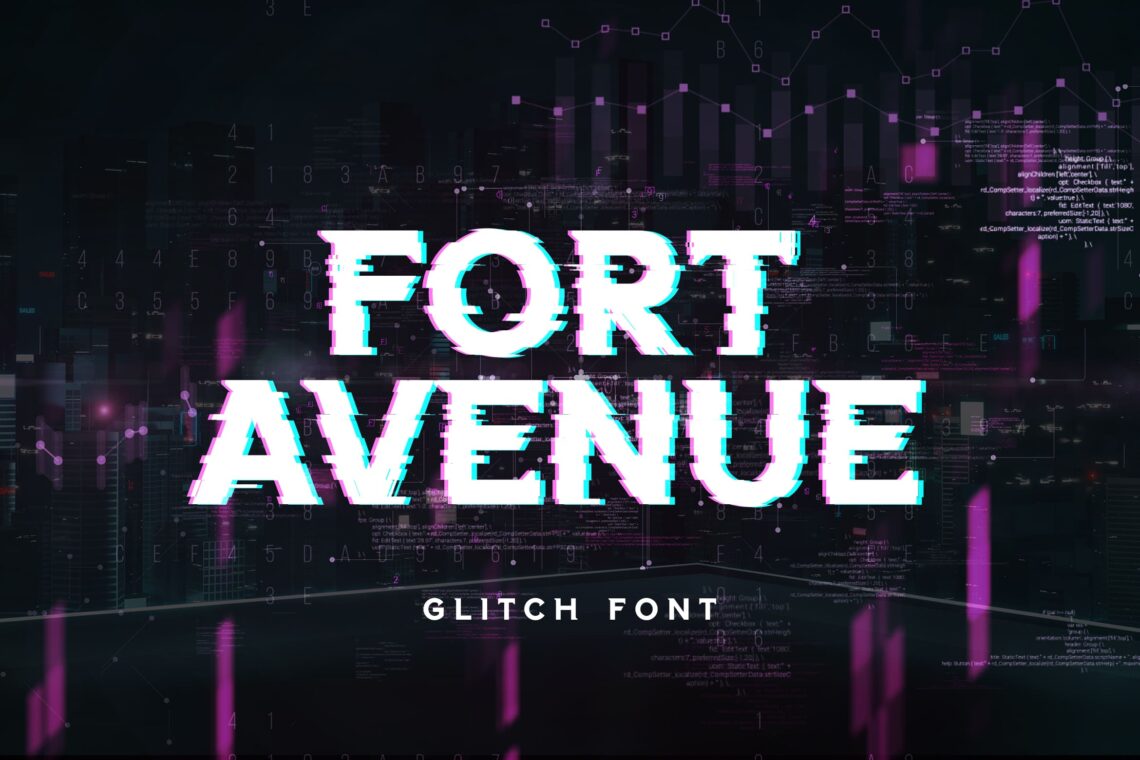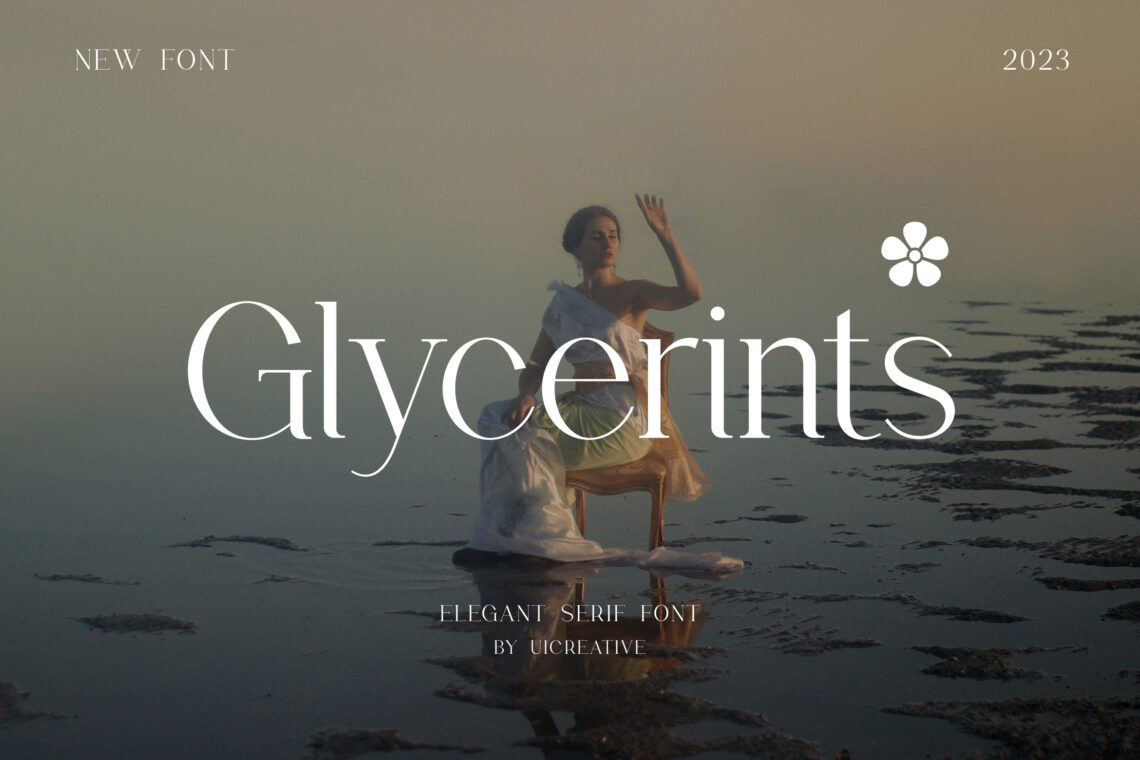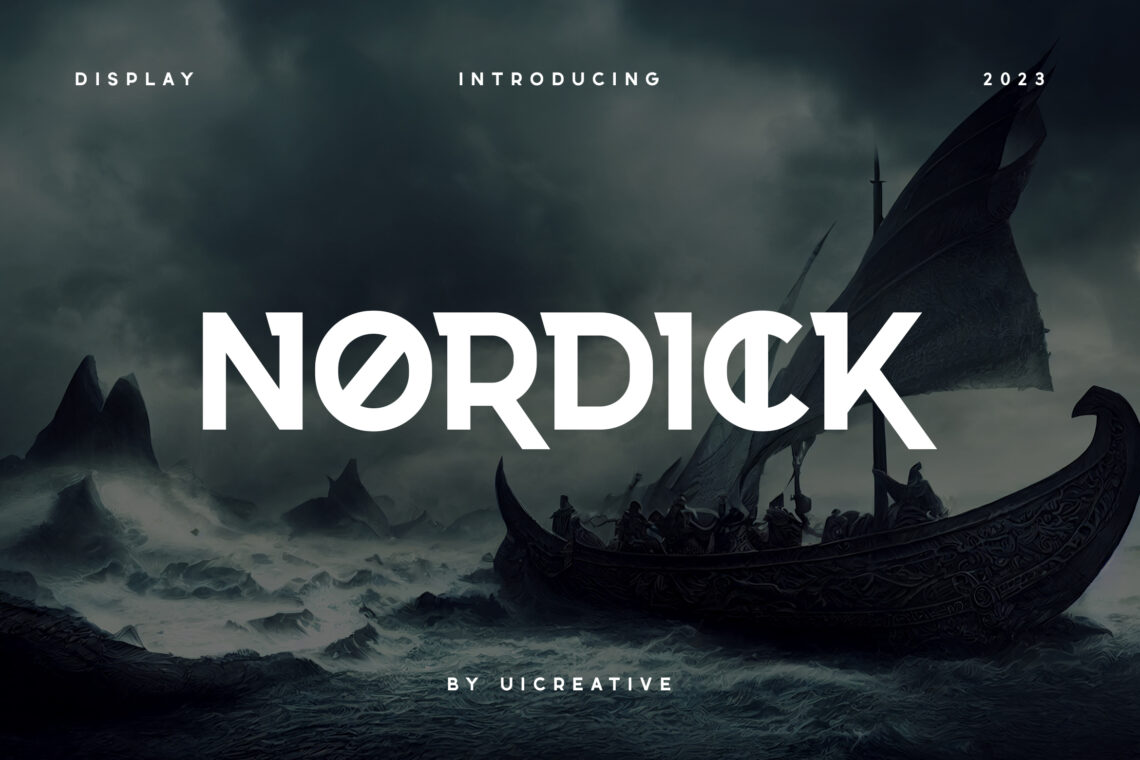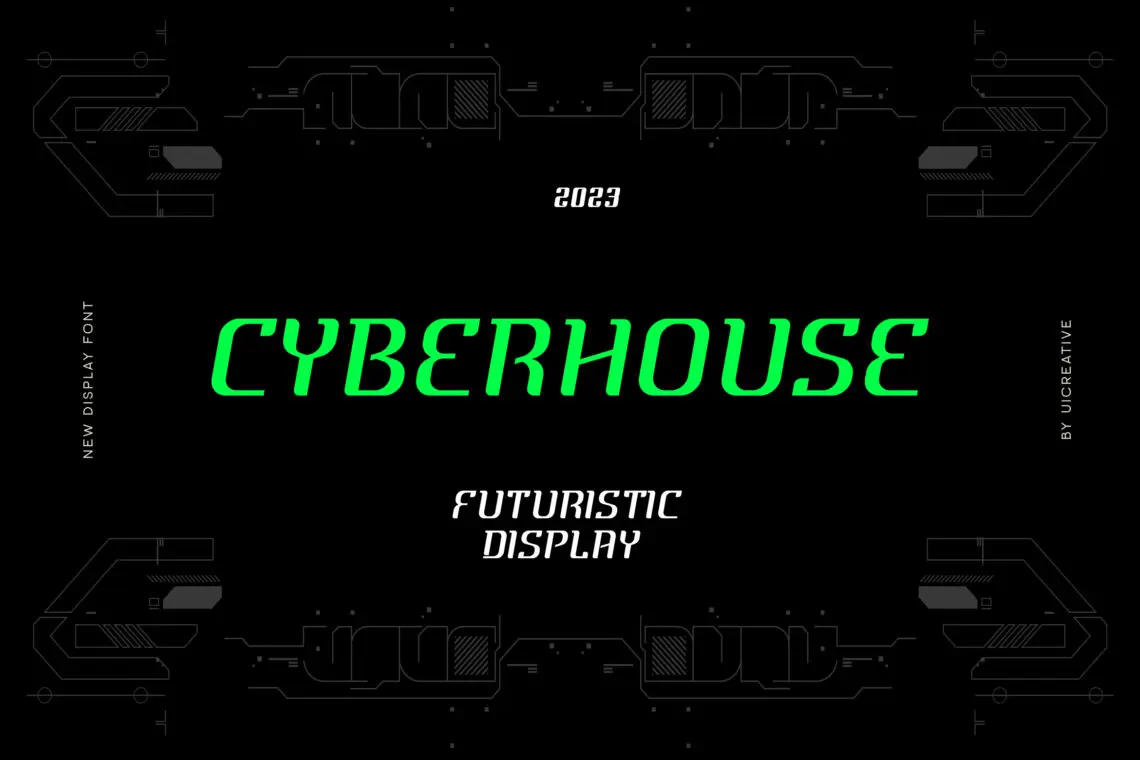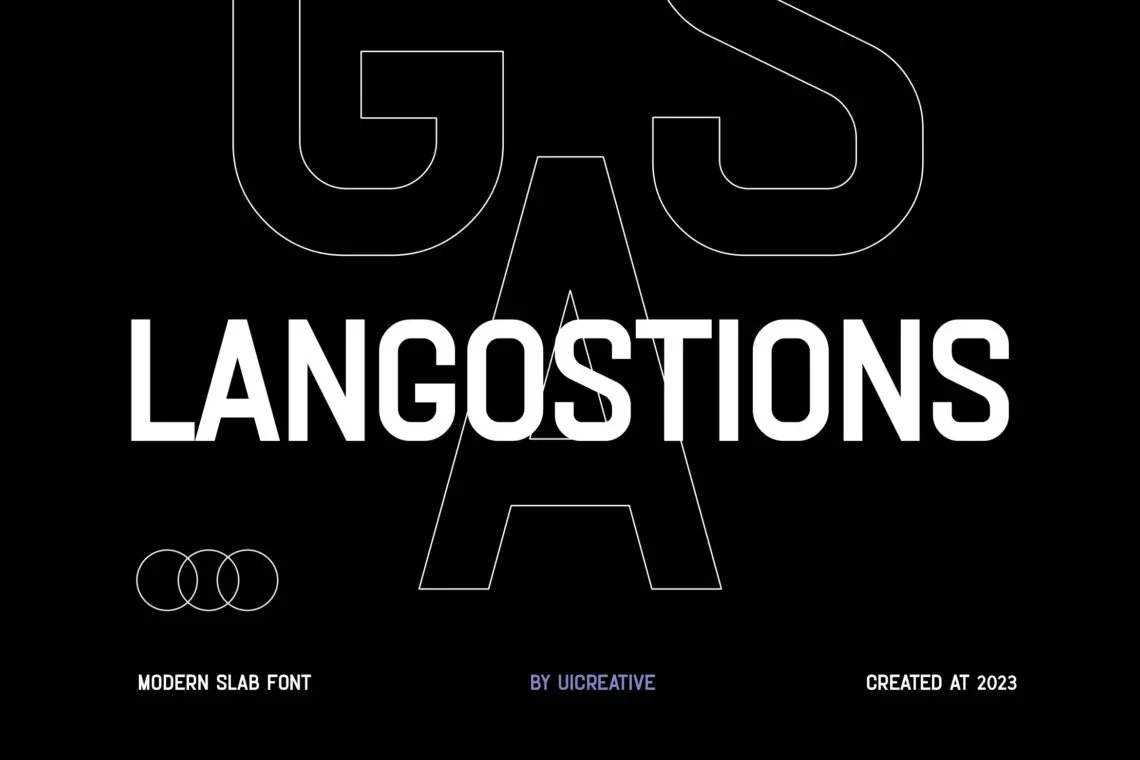
10 Best Technology Logo Fonts in 2025
Technology logo fonts are typefaces specifically designed to convey innovation, modernity, and futuristic aesthetics. These fonts often feature clean lines, geometric structures, and a sleek appearance to align with the cutting-edge nature of tech brands. The right technology logo fonts can help establish credibility and forward-thinking brand identity, whether used for software companies, AI startups, or cybersecurity firms.
10 Best Technology Logo Fonts in 2025
Selecting the best technology logo fonts is essential for creating a strong visual identity. Here are 10 of the top technology logo fonts in 2025 that embody innovation and professionalism:
1. Wainscoted Modern Serif Font
Wainscoted Modern Serif is a refined and sophisticated typeface that blends classic elegance with contemporary style. Featuring graceful serifs, high contrast strokes, and meticulously crafted letterforms, this font is perfect for luxury branding, editorial layouts, high-end packaging, and stylish invitations. Its timeless yet modern appeal makes it an excellent choice for fashion, lifestyle, and creative projects that demand a polished and distinguished look. Whether used for bold headlines or elegant body text, Wainscoted adds a touch of class and sophistication to any design.
2. Glycerints Elegant Serif Font
Glycerints Elegant Serif is a sophisticated and timeless typeface that embodies grace and refinement. With its delicate serifs, high contrast strokes, and meticulously balanced letterforms, this font is perfect for luxury branding, editorial design, wedding invitations, and high-end packaging. Its effortlessly stylish and polished aesthetic makes it ideal for fashion, beauty, and lifestyle projects that require a touch of elegance. Whether used for bold headlines or flowing body text, Glycerints adds a sense of class and sophistication to any design, making it truly stand out.
3. Nordick Display Font
Nordick Display Font is a bold and striking typeface that combines Nordic-inspired aesthetics with modern design sensibilities. Featuring strong, angular letterforms, sharp serifs, and a commanding presence, this font is perfect for branding, posters, headlines, and editorial layouts that demand attention. Its rugged yet refined style makes it ideal for adventure-themed designs, luxury packaging, and high-impact visual statements. Whether used in contemporary or vintage-inspired projects, Nordick Display adds a sense of strength, tradition, and timeless sophistication to any design.
4. Brixanos Sans Serif Modern Font
Brixanos Sans Serif Modern Font is a sleek and contemporary typeface designed for versatility and elegance. With its clean lines, balanced proportions, and minimalist aesthetic, this font is perfect for branding, corporate identities, web design, and editorial layouts. Its modern yet timeless appeal ensures readability while adding a sophisticated touch to any project. Whether used for bold headlines or refined body text, Brixanos brings a professional and stylish presence, making it an excellent choice for both creative and business-oriented designs.
5. Hyperion Sans Serif Modern Font
Hyperion Sans Serif Modern Font is a sleek and futuristic typeface that combines minimalism with a bold, contemporary edge. With its clean lines, geometric precision, and balanced letterforms, this font is perfect for tech branding, corporate identities, UI/UX design, and editorial layouts. Its modern aesthetic ensures excellent readability while maintaining a strong visual impact. Whether used for striking headlines or refined body text, Hyperion exudes innovation, sophistication, and versatility, making it an ideal choice for forward-thinking design projects.
6. Fort Avenue Serif Display Font
Fort Avenue Serif Display Font is a bold and elegant typeface that exudes timeless sophistication and vintage charm. With its strong serifs, high contrast strokes, and refined letterforms, this font is perfect for luxury branding, editorial layouts, packaging, and upscale invitations. Its classic yet contemporary appeal makes it ideal for fashion, hospitality, and creative projects that demand a distinguished and stylish presence. Whether used for striking headlines or refined typography, Fort Avenue adds a touch of prestige and elegance to any design.
7. Proxon Sans Serif Modern Font
Proxon Sans Serif Modern Font is a sleek and versatile typeface designed for contemporary projects that demand clarity and sophistication. With its clean lines, balanced proportions, and geometric structure, this font is perfect for branding, corporate identities, web design, and editorial layouts. Its modern aesthetic ensures excellent readability while maintaining a professional and stylish appeal. Whether used for bold headlines or refined body text, Proxon delivers a polished and innovative look, making it an excellent choice for forward-thinking designs.
8. Capella Bellatrix Sans Serif Display Font
Capella Bellatrix Sans Serif Display Font is a striking and modern typeface that blends elegance with a futuristic edge. With its clean lines, bold structure, and refined letterforms, this font is perfect for high-end branding, luxury packaging, editorial layouts, and innovative digital designs. Its sophisticated yet minimalistic aesthetic ensures strong visual impact while maintaining excellent readability. Whether used for attention-grabbing headlines or sleek typography, Capella Bellatrix adds a touch of modern sophistication and celestial charm to any design.
9. Cyberhouse Futuristic Display Font
Cyberhouse Futuristic Display Font is a bold and high-tech typeface designed for cutting-edge, sci-fi-inspired projects. Featuring sharp angles, geometric precision, and a sleek digital aesthetic, this font is perfect for technology branding, gaming, cyberpunk visuals, and futuristic UI designs. Its modern and edgy letterforms create a powerful visual impact, making it ideal for logos, posters, and digital interfaces. Whether you’re designing for the metaverse, esports, or tech startups, Cyberhouse delivers a dynamic and forward-thinking style that embodies the future.
10. Langostions Modern Slab Font
Langostions Modern Slab Font is a bold and contemporary typeface that merges classic slab-serif strength with a sleek, modern aesthetic. Featuring sturdy letterforms, well-defined serifs, and a balanced structure, this font is perfect for branding, editorial layouts, posters, and packaging that demand a confident and stylish presence. Its versatile design ensures readability while adding a touch of sophistication, making it ideal for both digital and print applications. Whether used for commanding headlines or refined typography, Langostions delivers a timeless yet modern appeal to any design project.
Conclusion
Technology logo fonts play a vital role in defining a brand’s image in the digital era. Whether focusing on AI, cybersecurity, software, or innovation-driven startups, choosing the right technology logo fonts ensures a strong, modern, and professional identity. The 10 technology logo fonts listed above provide the perfect blend of futuristic aesthetics and readability, making them excellent choices for tech-focused branding in 2025.